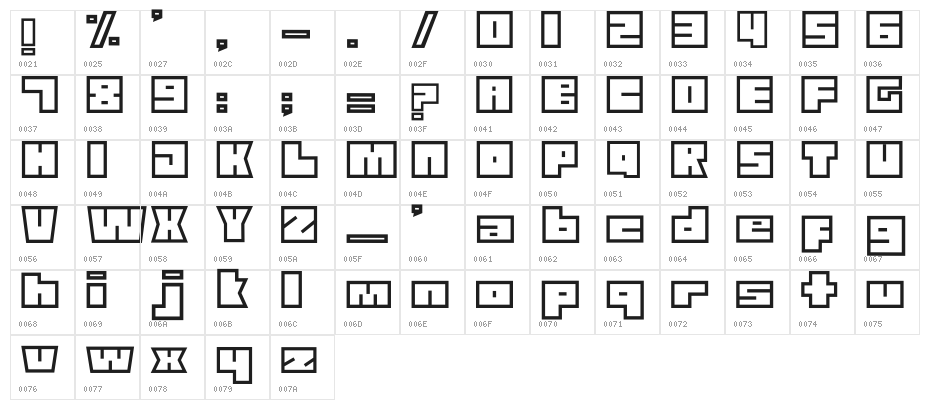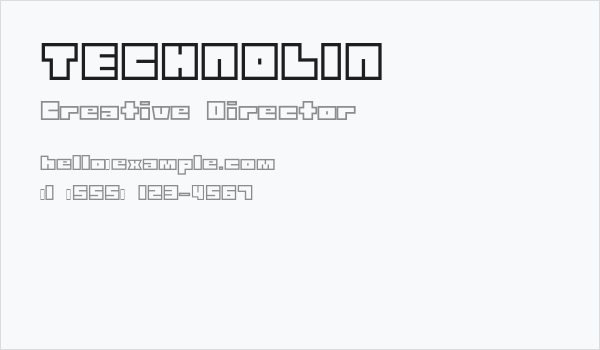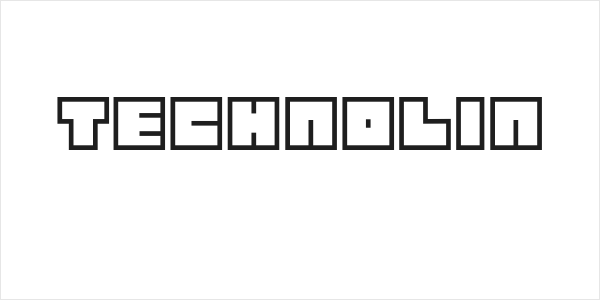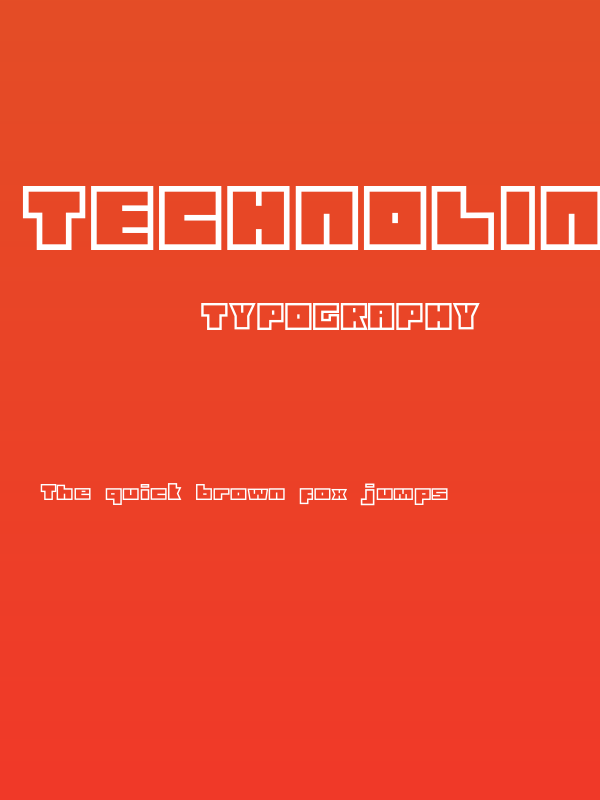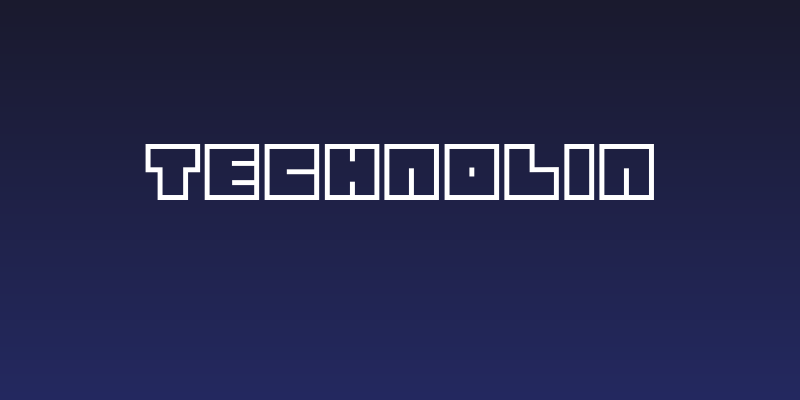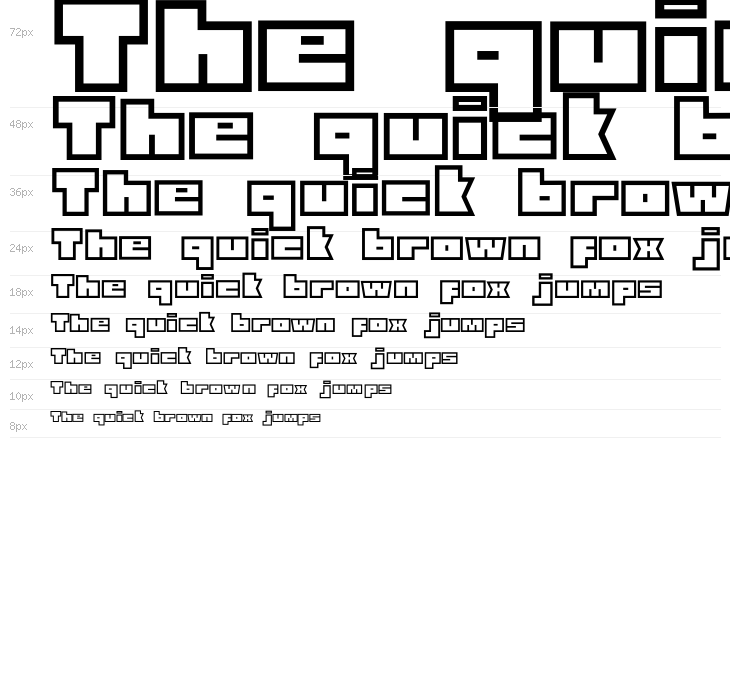
TECHNOLIN Font
TECHNOLIN Description
This font features a bold, geometric design with a strong emphasis on angular shapes and sharp edges. Each character is enclosed within a thick, uniform outline, creating a striking and futuristic appearance. The uppercase and lowercase letters maintain a consistent style, with the lowercase being slightly more compact. The numerals are equally bold and follow the same geometric pattern, ensuring uniformity across all characters. Special characters are designed with the same attention to detail, making them seamlessly integrate with the rest of the font. The overall look is modern and tech-inspired, suitable for projects that require a bold and impactful visual statement.
| Proposed Projects | Ideal for technology branding, video game titles, sci-fi themed posters, and digital media. |